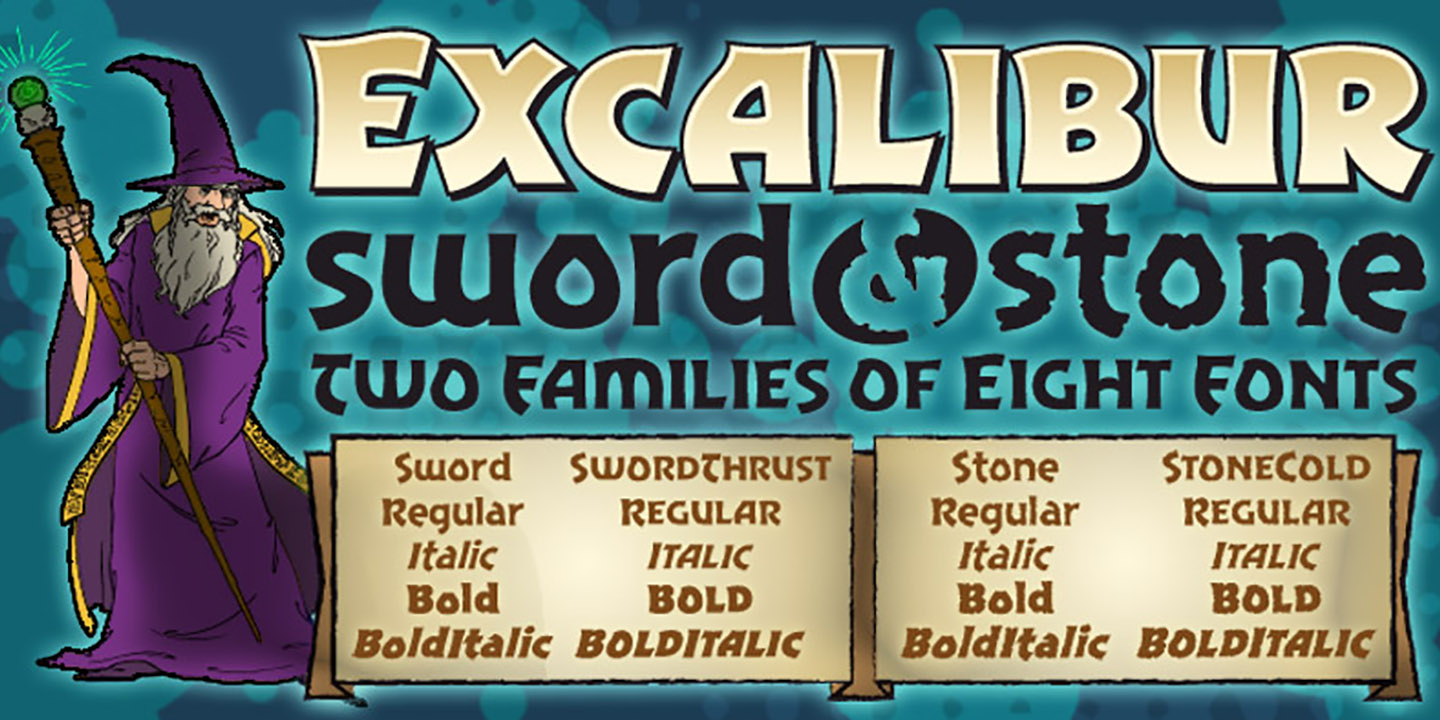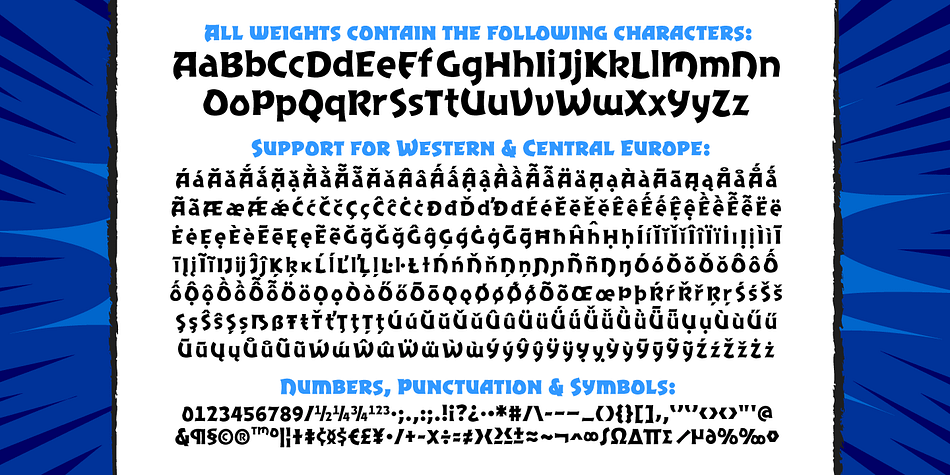
Designed by John Roshell, Excalibur Sword is a novelty and display sans font family. This typeface has eight styles and was published by Comicraft.
The Sword has been Drawn! The Quest for the Holy Grail has begun! When Arthur took the mighty sword of Excalibur from the Lady of the Lake, little did he know of the stories that would be spun, the myths that would be built around him, the Legend of Camelot and the Knights of the Round Table! And The Font. Merlin might have been King Arthur’s sage advisor, a font of wisdom and magicks, but never was Merlin available in postscript, truetype and opentype formats, nor was Lancelot, Arthur’s First Knight suitable for Celtic Display Lettering!
Eight fonts (upper/lower Regular, Italic, Bold, Bold Italic & smallcaps Regular, Italic, Bold & Bold Italic) with Western & Central European international characters.